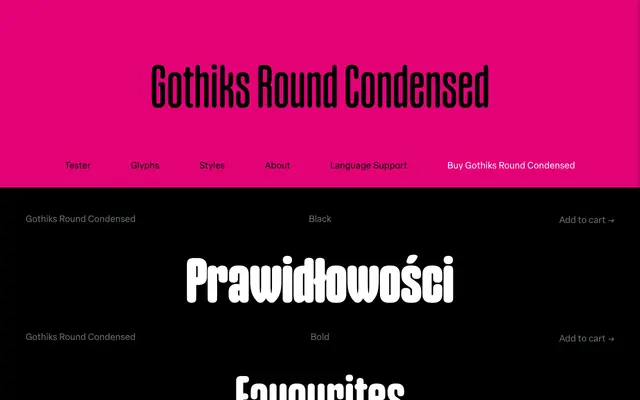
Gothiks Round Condensed
Blackletra · Daniel Sabino · 2018
A rounded, condensed geometric sans in six weights, derived from the broader Gothiks type system designed by Daniel Sabino.
Part of Blackletra's Gothiks family, this condensed variant pairs rounded terminals with a tight, upright silhouette across six weights running from UltraLight to Black. The rounding softens what would otherwise be a rigid geometric skeleton, making it suitable for display work where a friendlier tone is needed without sacrificing economy of space. Language support spans an extensive range of Latin-based scripts.
A condensed geometric sans-serif with rounded terminals, derived from the Gothiks family. The rounded endings place it firmly in the geometric-rounded subcategory of sans-serif.